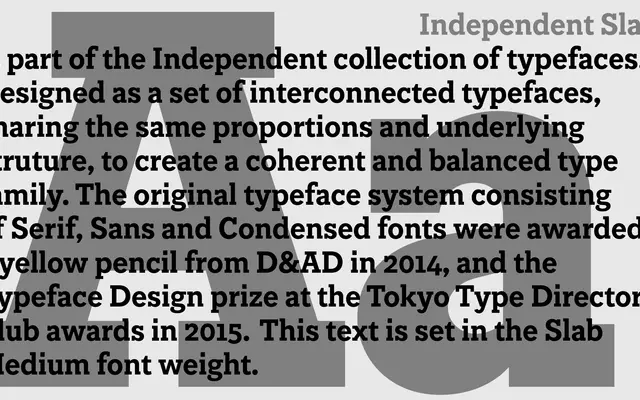
Independent Slab
A2-Type · 2013
A slab serif drawn as part of A2-Type's commissioned type system for The Independent newspaper, covering five weights with matching italics for print and digital use.
Designed in 2013 as one member of a larger interconnected family built for The Independent's daily print and digital editions, the Slab shares underlying proportions with the accompanying serif and sans cuts. Five weights run from Light to Black, each with a companion italic, giving editors a full range for body text through to section headings. The broader Independent family earned a D&AD Yellow Pencil in 2014 and the Typeface Design prize at the Tokyo TDC in 2015.
A slab serif designed as part of a larger newspaper type system, sharing proportions with the serif and sans counterparts; the uniform bracketed slabs and sturdy weight range place it firmly in the slab serif tradition suited to print and editorial use.